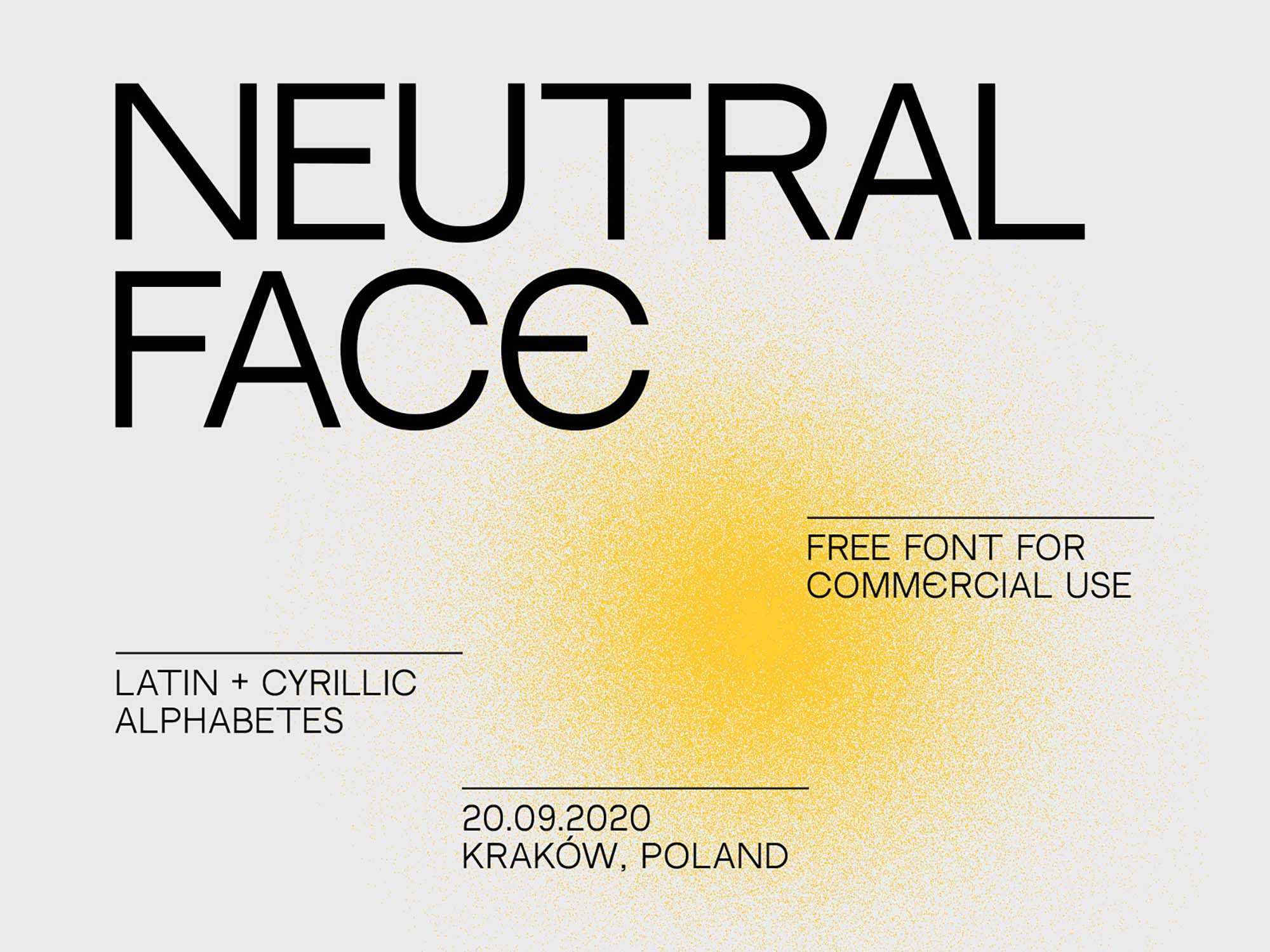
Neutral faces and lack of emotions often signal strength and composure. This font captures the essence of such a neutral expression with its clarity and transparency. Unlike fonts that require careful manipulation to achieve a precise emotion, this neutral face font maintains a straight-forward, unambiguous appearance. It’s evident and completely open, with its varied characters making it clear what to expect. Whether you’re looking for a clean and powerful mockup, or simply a versatile font to enhance your design projects, this neutral face font is a perfect choice. Its simplicity and control-free nature make it an attractive option for those who prefer a straightforward approach to design.